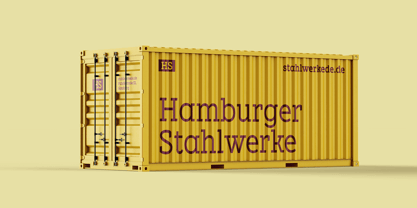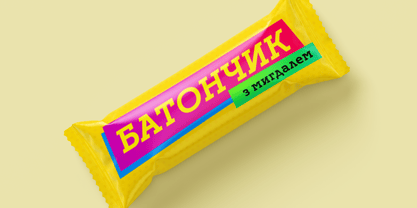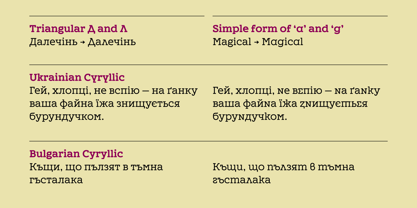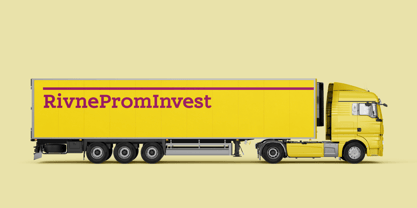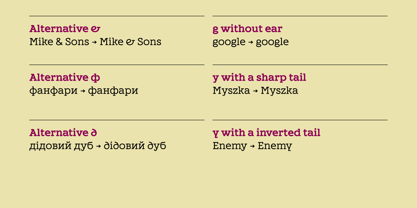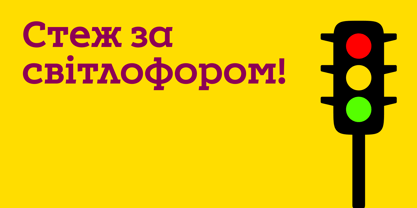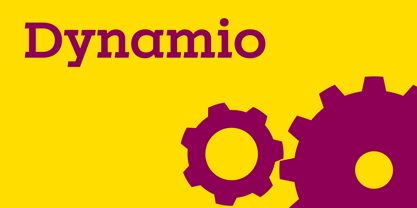
The Dynamio Font Family was designed by Arsen Mosiichuk and published by Arsen Mosiichuk Type Foundry. Dynamio contains 6 styles and family package options. More about this family
Dynamio is a slab serif typeface whose letterforms echo the industrial fonts of the early 20th century. While it carries a distinct vintage character, it also features subtle humanist touches that set it apart from purely historical designs. Dynamio is well suited for decorative use — such as logos, signage, and short inscriptions — but can also be used effectively for setting short texts. The typeface includes a wide range of stylistic sets and alternative glyphs, significantly expanding its expressive and practical potential.
Designers: Arsen Mosiichuk
Foundry: Arsen Mosiichuk Type Foundry
Dynamio